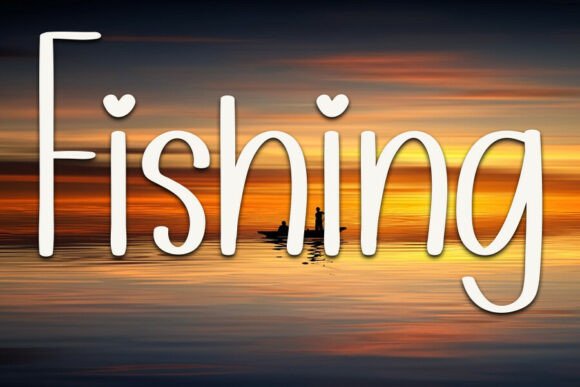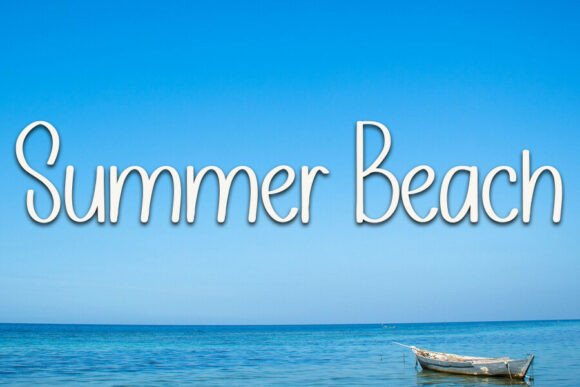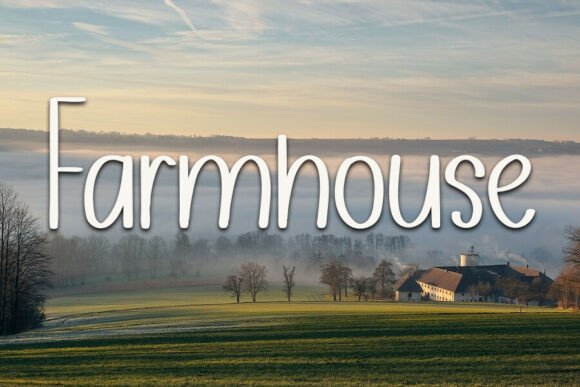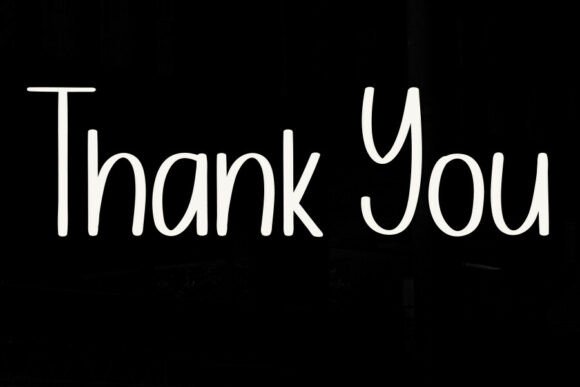
The Chunky Font: A Simple yet Powerful Addition to Your Design Arsenal
I’ll never forget the time I was working on a project for a client’s greeting card, and I just couldn’t seem to find the right font. I wanted something that felt natural, something that would add a touch of warmth to the design. That’s when I stumbled upon Chunky, a simple handwritten font that has since become a staple in my design toolkit.
Chunky is a versatile font that can be used in a wide range of applications, from greeting cards to headlines, and even social media graphics. Its simple, handwritten aesthetic adds a touch of personality to any design, making it perfect for crafters, designers, and creative hobbyists alike.
What I Love About Chunky ✨
- ✅ Simple and easy to read, even at small sizes
- ✅ Versatile and can be used in a variety of design applications
- ✅ Natural and handwritten feel adds a touch of personality to designs
- ✅ Works well with both images and text
- ⚠️ Limited font weights, which can make it difficult to create dramatic contrasts
- ⚠️ Some users may find the font too simplistic or lacking in flair
One of the best things about Chunky is its support for OpenType features and glyphs. This means you can access a range of stylistic alternates, ligatures, and other special characters to add extra personality to your designs.
The Story Behind Chunky: A Designer Inspiration
Chunky was designed by a talented typographer who wanted to create a font that was both simple and elegant. The designer was inspired by traditional handwritten fonts, but wanted to create something that was more modern and versatile.
The result is a font that’s both timeless and trendy, perfect for designers who want to add a touch of personality to their work.
A: Chunky works best as a display font or for short blocks of text. It’s perfect for headlines, titles, and other design elements where you want to add a touch of personality.
A: Currently, Chunky is only available in a single font weight. However, this can actually be a benefit for designers who want to create a clean and cohesive look.